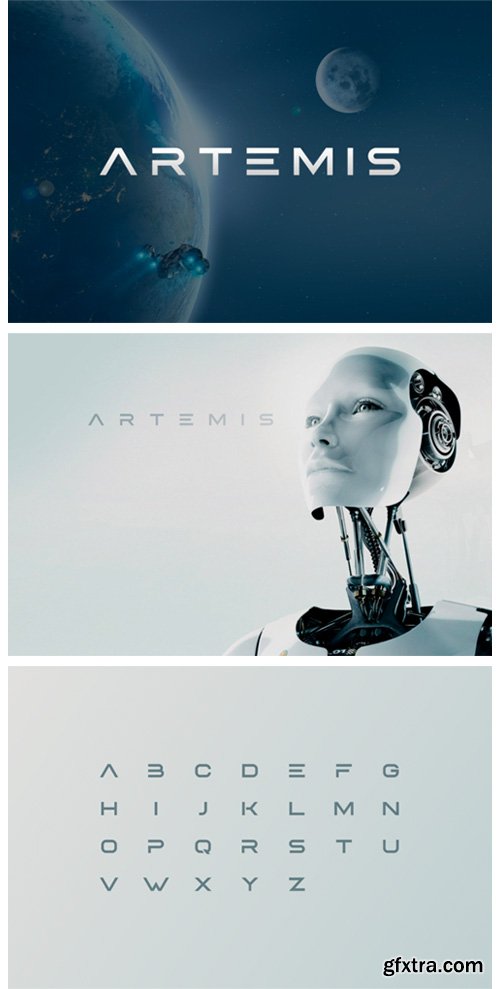
Artemis Font
Artemis is a modern, elegant and futuristics font. It is suitable for any branding, product packaging, invitation, quote, t-shirt, label, poster, logo that you wish to develop.